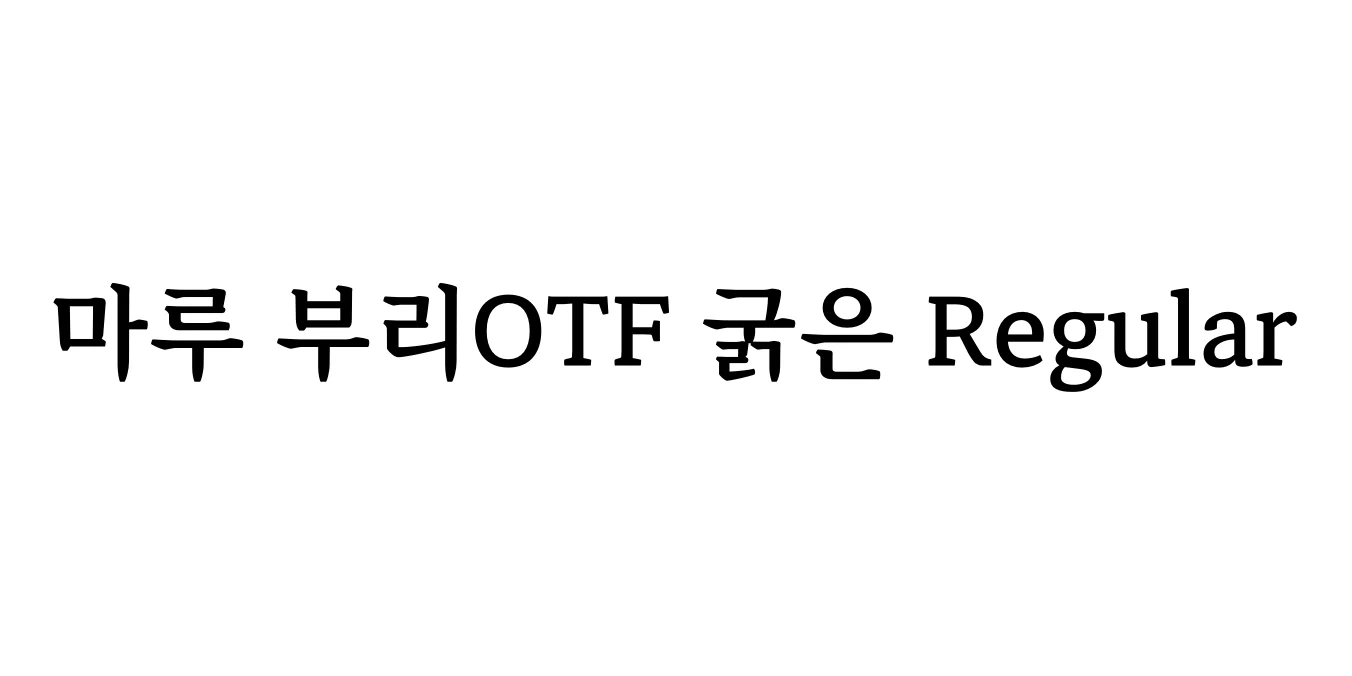
마루 부리OTF 굵은 Regular
Designed by Naver Corporation & Sandoll Co., Ltd.
| Category | Serif / Myeongjo |
| Designer | Naver Corporation & Sandoll Co., Ltd. |
Maru Buri is a contemporary reinterpretation of the traditional Korean Myeongjo (serif) typeface. Developed as part of Naver's long-standing 'Hangeul Campaign', this font was designed to bridge the gap between the classic aesthetics of woodblock printing and the requirements of modern digital screens. It emphasizes a humanistic touch, providing a warm and organic reading experience that departs from the mechanical rigidity often found in standard digital serifs.
The Bold (굵은) variation of Maru Buri OTF offers a robust and authoritative presence. While it maintains the delicate calligraphic details and balanced proportions of the regular weight, the increased stroke thickness ensures high visibility for headlines and brand elements. It is widely recognized for its superior legibility on high-resolution displays, making it a staple for premium digital publishing and sophisticated graphic design.
마루 부리OTF 굵은 Regular Best Uses
Provides a strong and sophisticated visual impact for web and print titles.
Ensures excellent readability for professional long-form content on screens.
Conveys a sense of modern tradition and reliability for corporate branding.
Perfect for magazines, book covers, and high-end print materials.